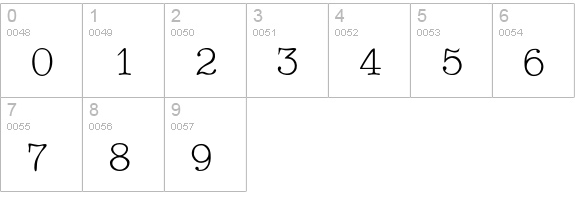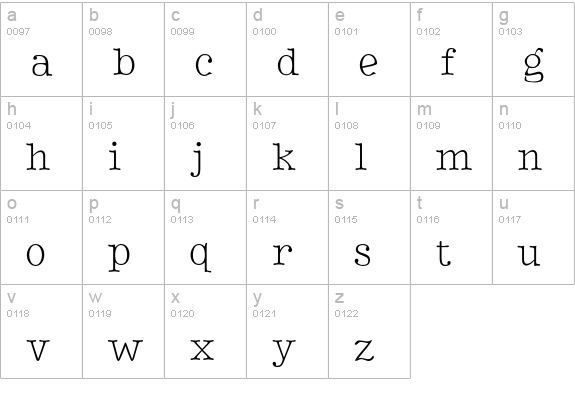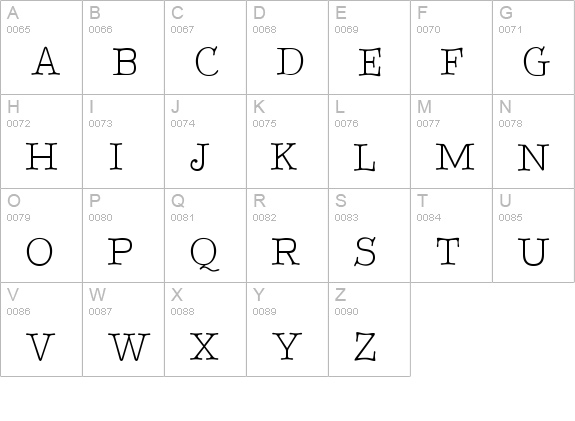
Typenrad Font Details
Introducing Typenrad, a stunning font that effortlessly blends elegance and modernity. With its sleek lines and subtle curves, Typenrad captures attention and adds a touch of sophistication to any design project. This beautiful font is not only visually captivating but also highly versatile, making it perfect for a wide range of applications. Whether you're working on a logo, branding materials, invitations, or even a website, Typenrad's clean and contemporary aesthetic will elevate your design to new heights. One of the best features of Typenrad is that it is available for free. That's right, you can download this remarkable font at absolutely no cost from FontsMarket.com. This means that you can enjoy the benefits of this premium quality font without having to worry about breaking the bank. Typenrad's extensive character set ensures that you have all the tools you need to create captivating and unique typography. From uppercase and lowercase letters to numerals, punctuation marks, and even special characters, this font has it all. Its well-crafted forms and balanced letter spacing make it easy to read, ensuring that your message comes across effortlessly. Whether you're a professional graphic designer or a creative enthusiast, Typenrad is a must-have font in your collection. Its timeless appeal and versatility make it suitable for any project, from elegant corporate designs to stylish personal projects. So why wait? Head over to FontsMarket.com and download Typenrad today. Unleash your creativity and let this exceptional font elevate your designs to new levels of excellence. With Typenrad at your disposal, the possibilities are endless.